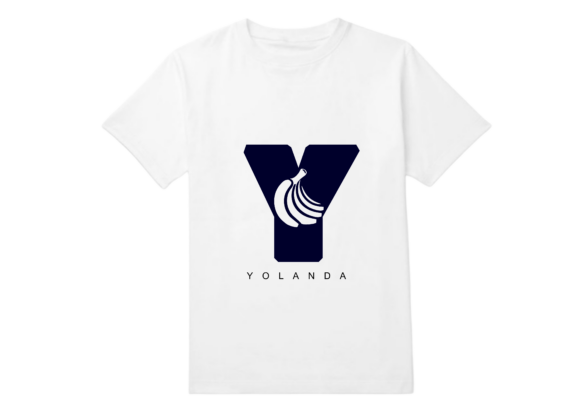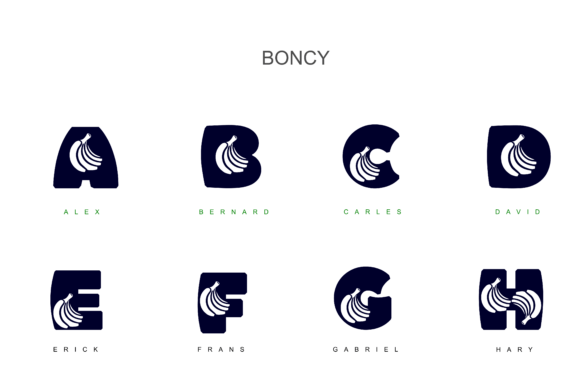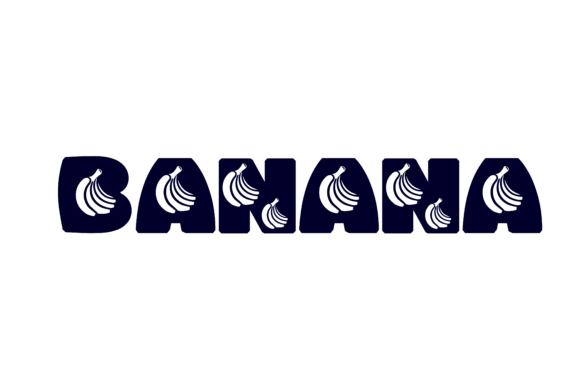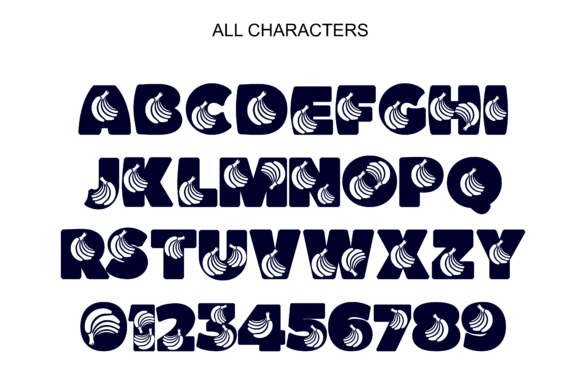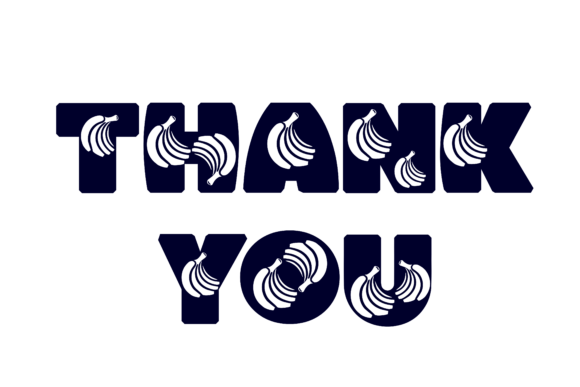
Unleash the Whimsy: Discover the Enchanting World of Boncy Font
Imagine a world where typography comes alive, transporting you to a realm of childhood wonder and magic. Welcome to the captivating universe of Boncy, a bewitching typeface that embodies the exhilaration and charm of youth. Born from the depths of juvenile imagination, Boncy masterfully merges lively glyphs with energetic alphabets, transforming mundane characters into a remarkable visual extravaganza.
The Birth of Boncy: A Story of Creative Expression
Boncy’s origin story is rooted in the desire to recapture the carefree essence of childhood. This font was crafted with the intention of infusing designs with a youthful zest, making it an ideal asset for creative projects that require a dash of whimsy and merriment. Whether you’re a designer, crafter, or educator, Boncy offers a unique opportunity to add a touch of magic to your work.
A Rare Amalgamation of Creativity and Craftsmanship
What sets Boncy apart is its rare blend of creativity and craftsmanship. This font is not just a collection of letters and symbols; it’s an experience. Each glyph is carefully crafted to evoke a sense of wonder and excitement, making it perfect for a wide range of artistic expeditions. From engaging teaching aids and delightful children’s literature to radiant brand assignments, Boncy is the perfect companion for any creative project.
Exploring the Features of Boncy Font
So, what makes Boncy so special? Here are just a few features that set this font apart:
- Lively Glyphs: Boncy’s glyphs are designed to be playful and fun, adding a touch of whimsy to any design.
- Energetic Alphabets: The font’s alphabets are bursting with energy, making them perfect for projects that require a youthful and vibrant feel.
- Minimalist Charm: Despite its playful nature, Boncy also boasts a mesmerizing charm of minimalism, making it suitable for designs that require a touch of sophistication.
Using Boncy in Your Designs
So, how can you incorporate Boncy into your designs? Here are a few ideas to get you started:
- Children’s Literature: Add a touch of magic to your children’s books with Boncy’s playful and whimsical font.
- Teaching Aids: Make learning fun with Boncy’s engaging and energetic font, perfect for educational materials.
- Branding: Give your brand a youthful and vibrant feel with Boncy’s unique and captivating font.
Tips for Working with Boncy
To get the most out of Boncy, here are a few tips to keep in mind:
- Experiment with Colors: Boncy looks great in a variety of colors, so don’t be afraid to experiment and find the perfect hue for your design.
- Mix and Match: Combine Boncy with other fonts to create a unique and visually appealing design.
- Keep it Simple: Don’t overcomplicate your design – Boncy’s minimalist charm is perfect for simple, yet effective designs.
In conclusion, Boncy is a font like no other. Its unique blend of creativity and craftsmanship makes it the perfect asset for any designer, crafter, or educator looking to add a touch of whimsy and merriment to their work. With its lively glyphs, energetic alphabets, and minimalist charm, Boncy is sure to captivate audiences of all ages. So why not give Boncy a try and unleash the magic of this enchanting font in your designs?